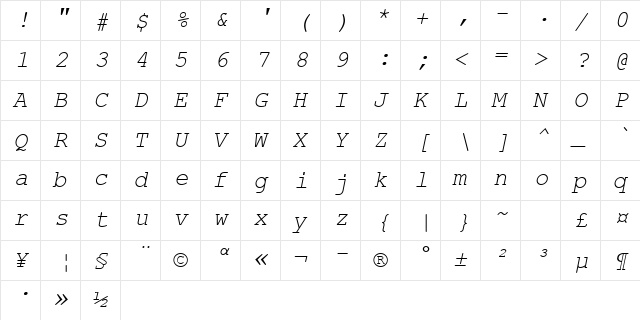
Courier New Greek Inclined
Design Context for Courier New Greek Typeface
Courier New Greek brings the precise, column-aligned rhythm of monospaced typography to designs that value technical clarity and systematic order.
Well-suited to data-driven dashboards, coding tutorials, and any design that wants to reference the world of programming.
Pro Tip: Use Courier New Greek with slightly increased line-height for extended reading — fixed-width spacing can feel dense in longer passages without extra breathing room.